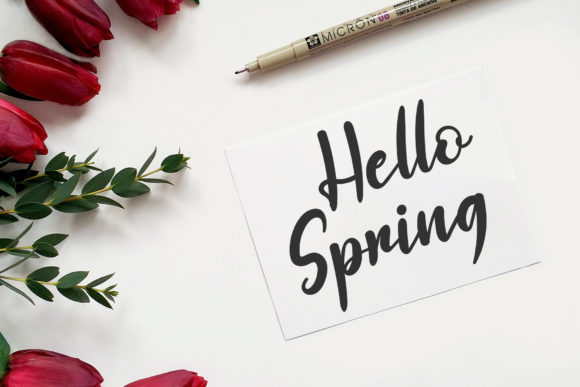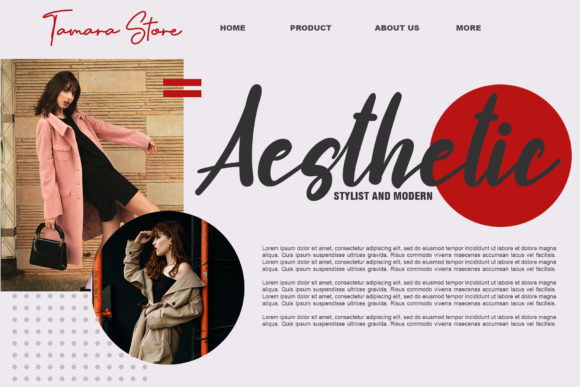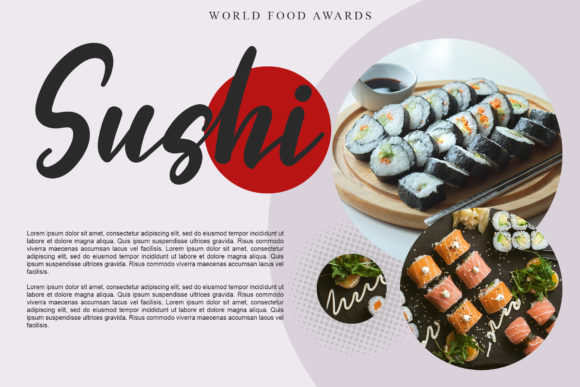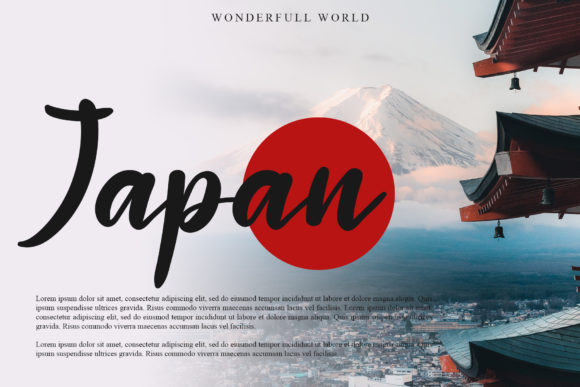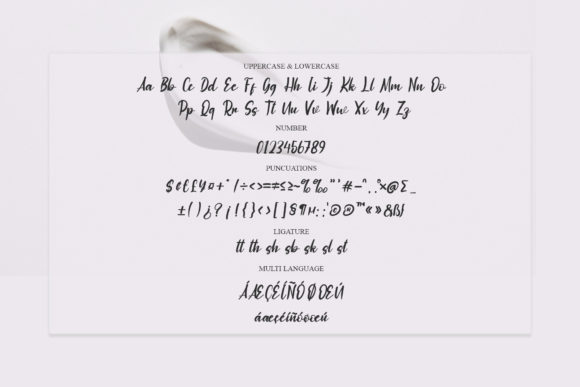
Squashy Font
About Squashy Font
Squashy is a beautiful and whimsical script font. It is defined by smooth curves and is perfect for fashion branding or editorial designs. Add it confidently to your projects, and you will love the results.